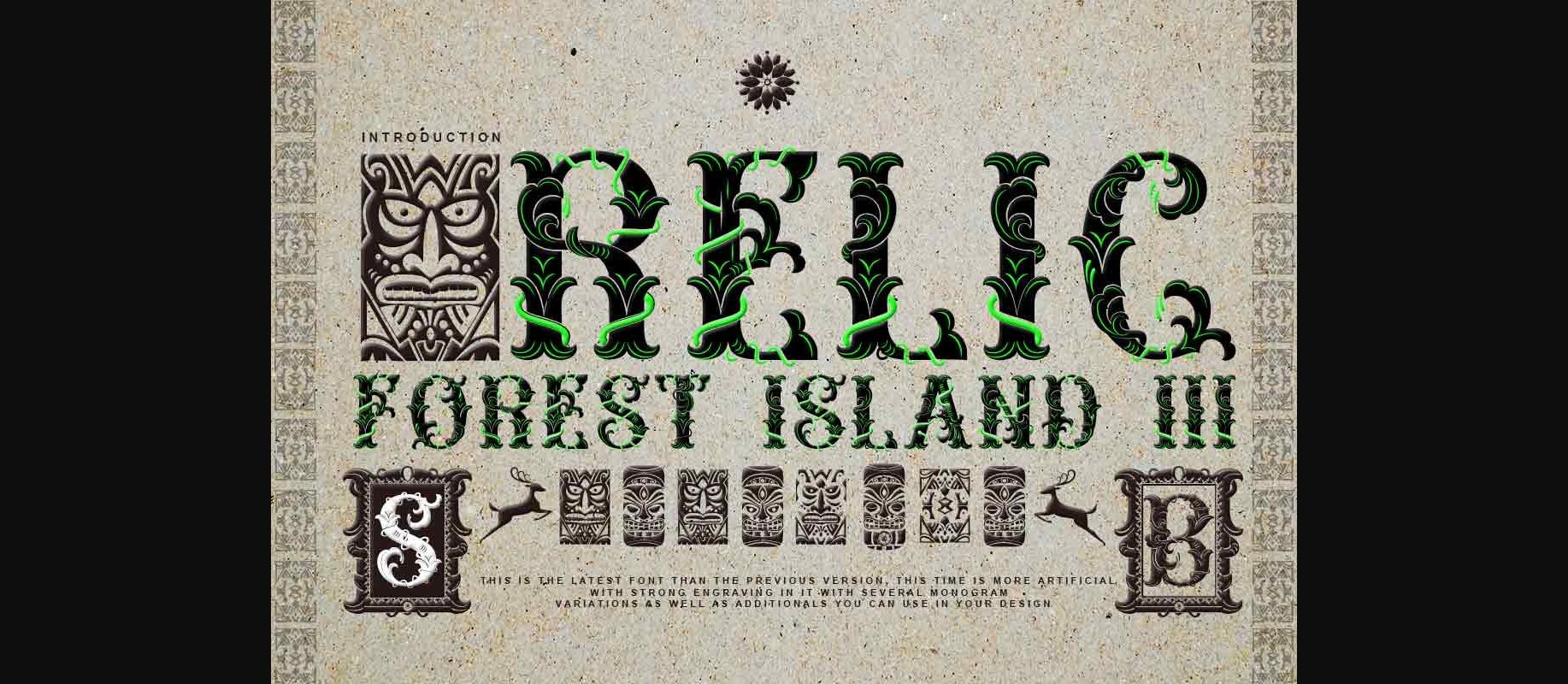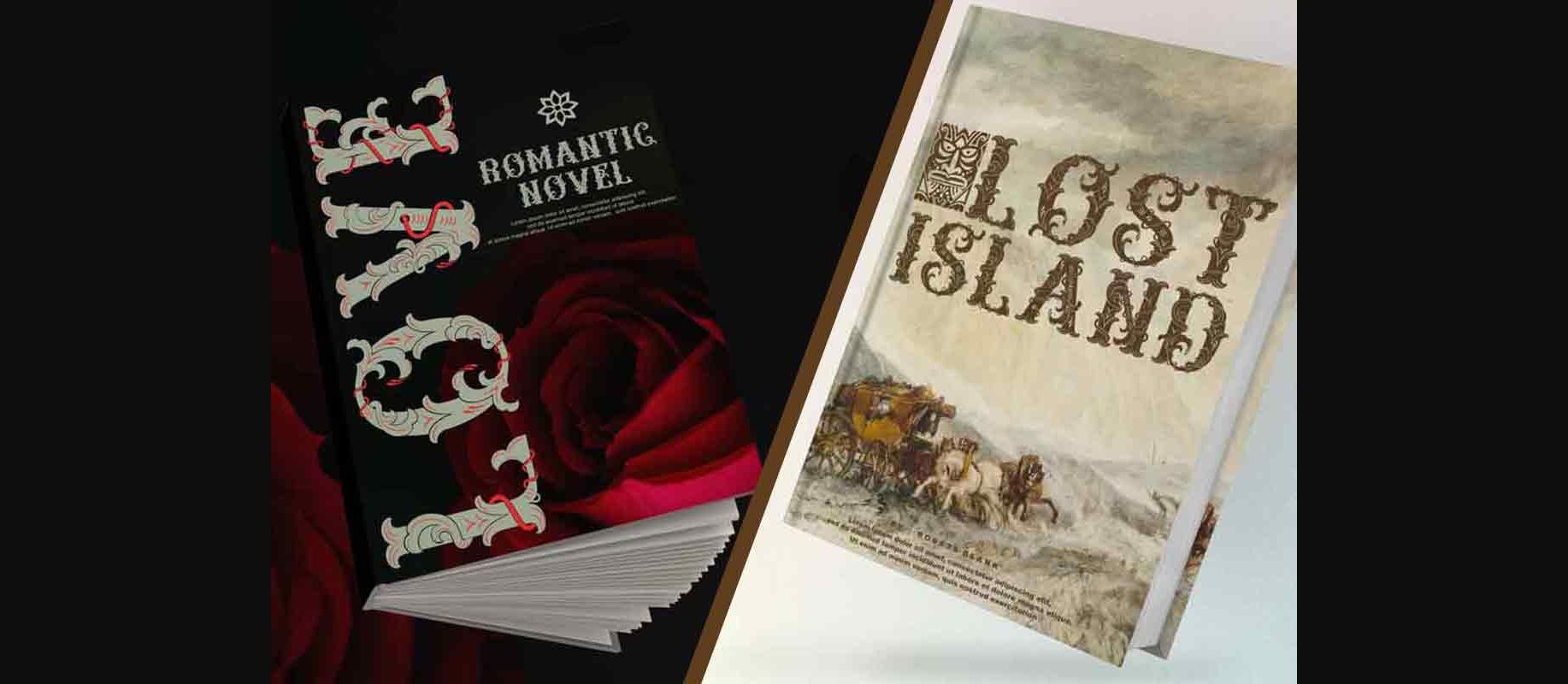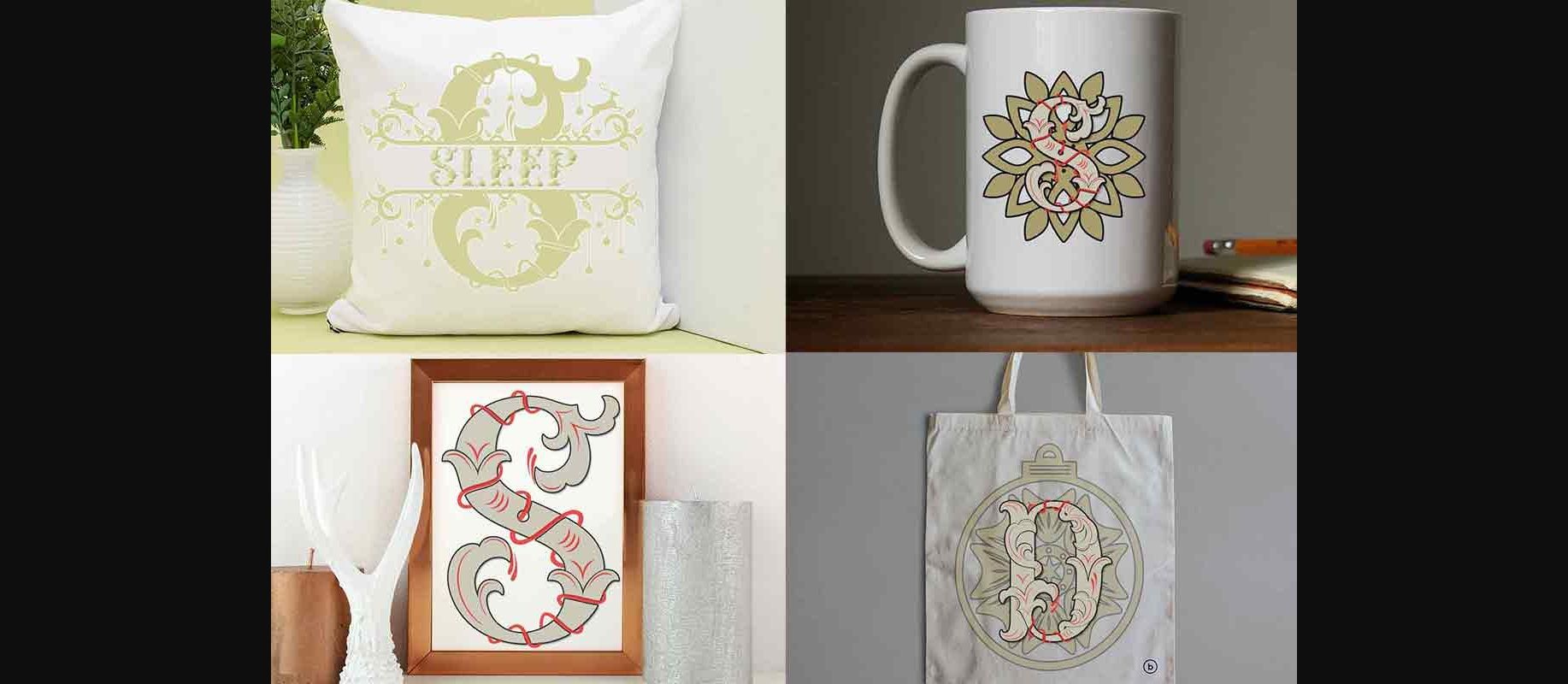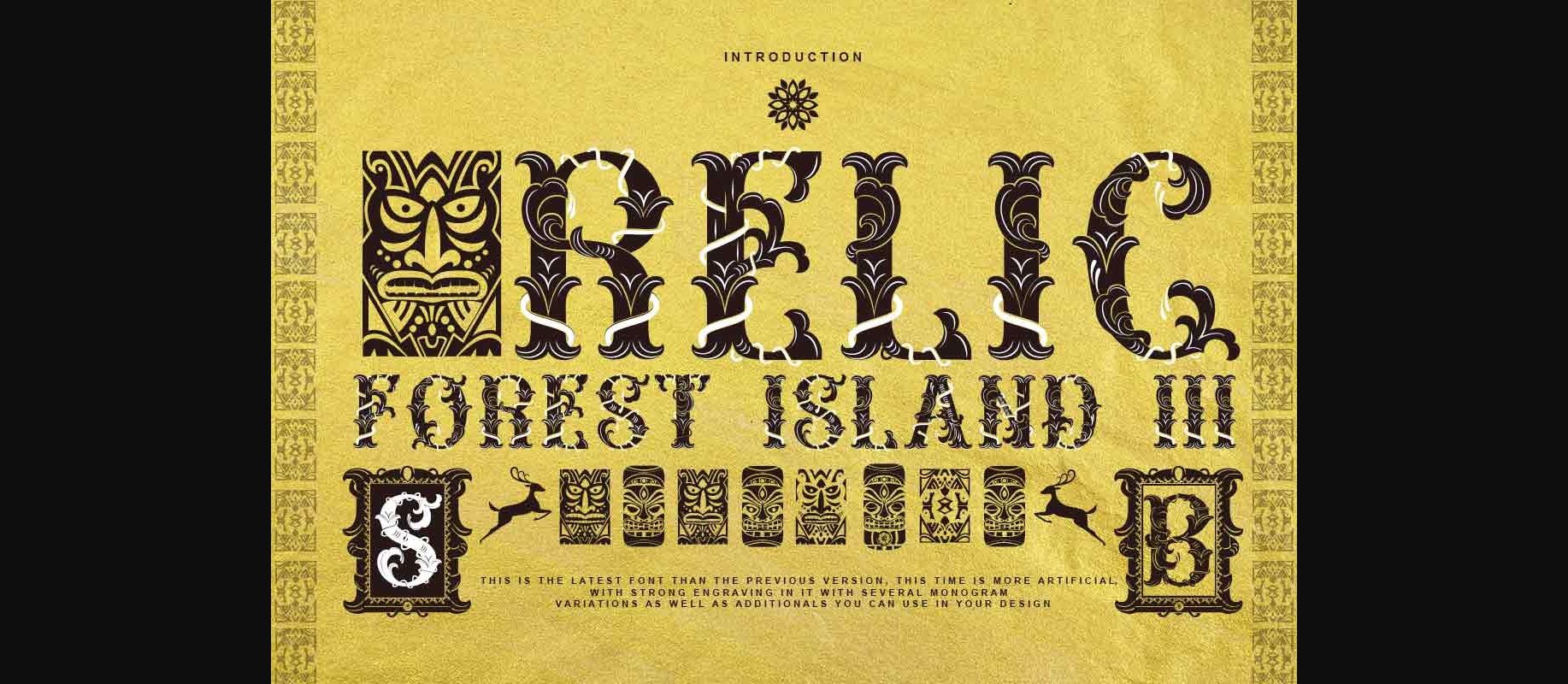
About Relic Forest Island Iii Font
Relic forest island III is a cool, unique, and incredibly intricate decorative display font. This font comes with a more detailed touch with very charming carvings, several monograms, and families that you can choose according to your liking and design needs. Add it confidently to your projects and you will be astounded by the generated outcome!